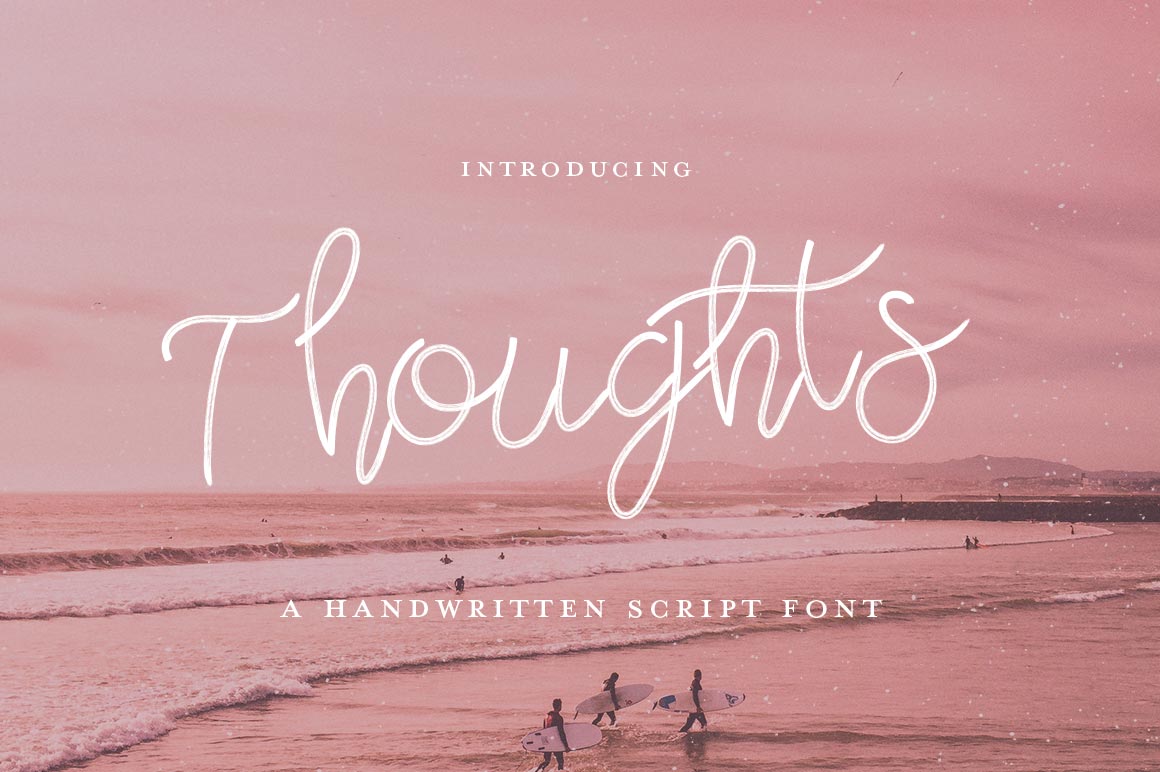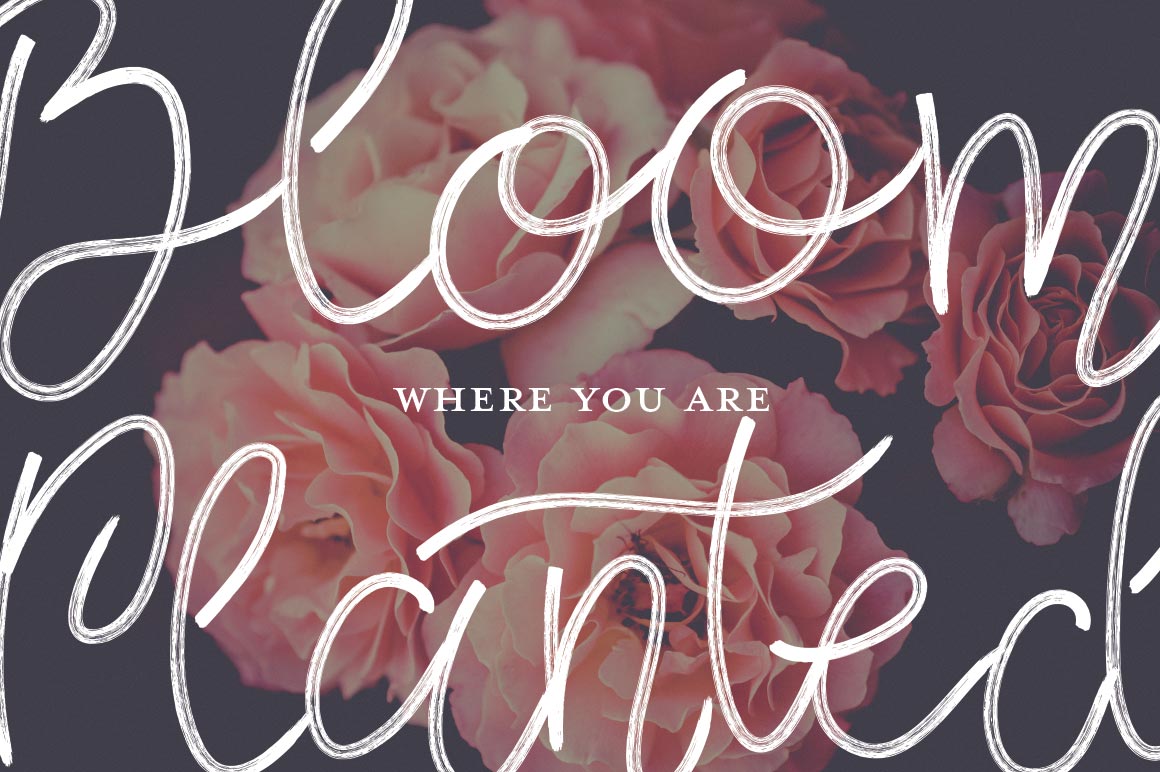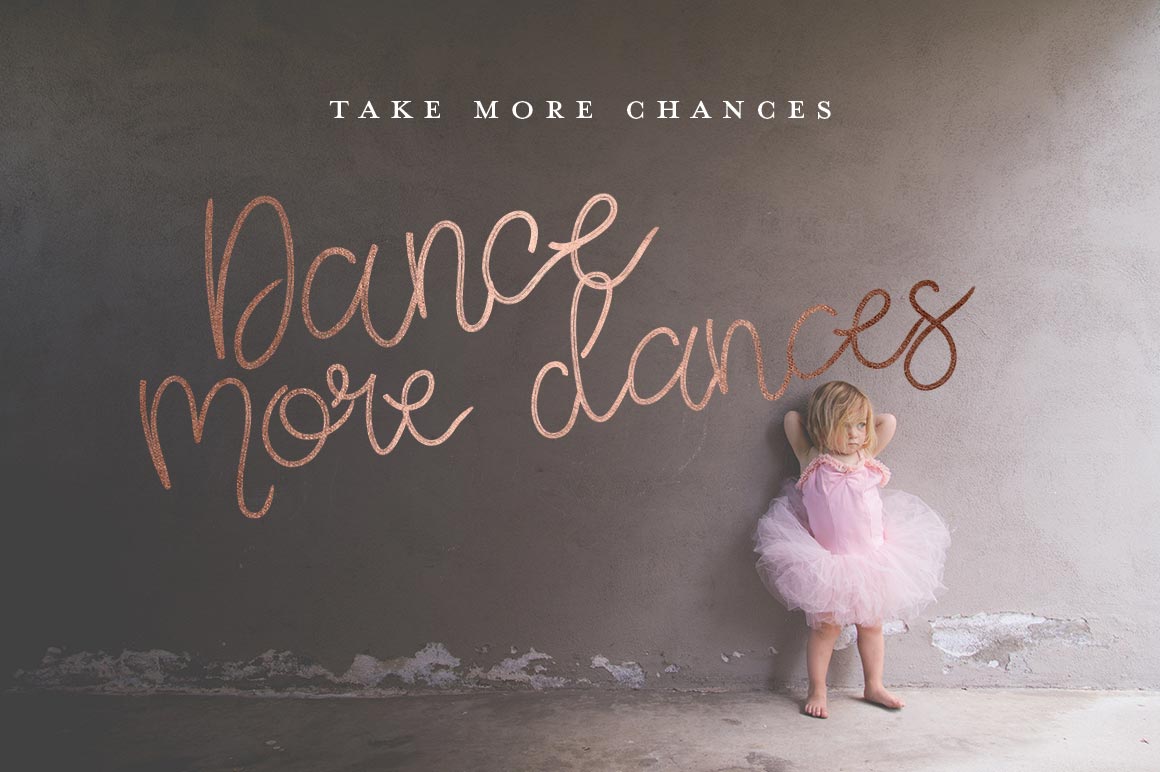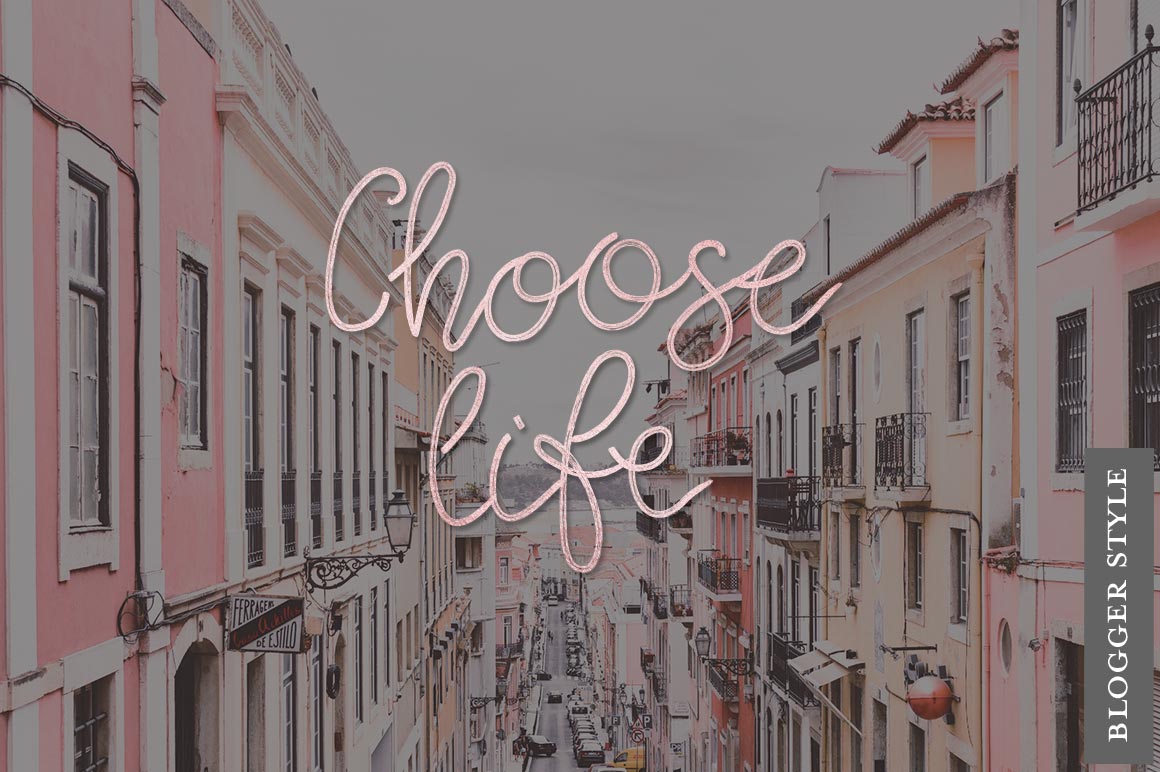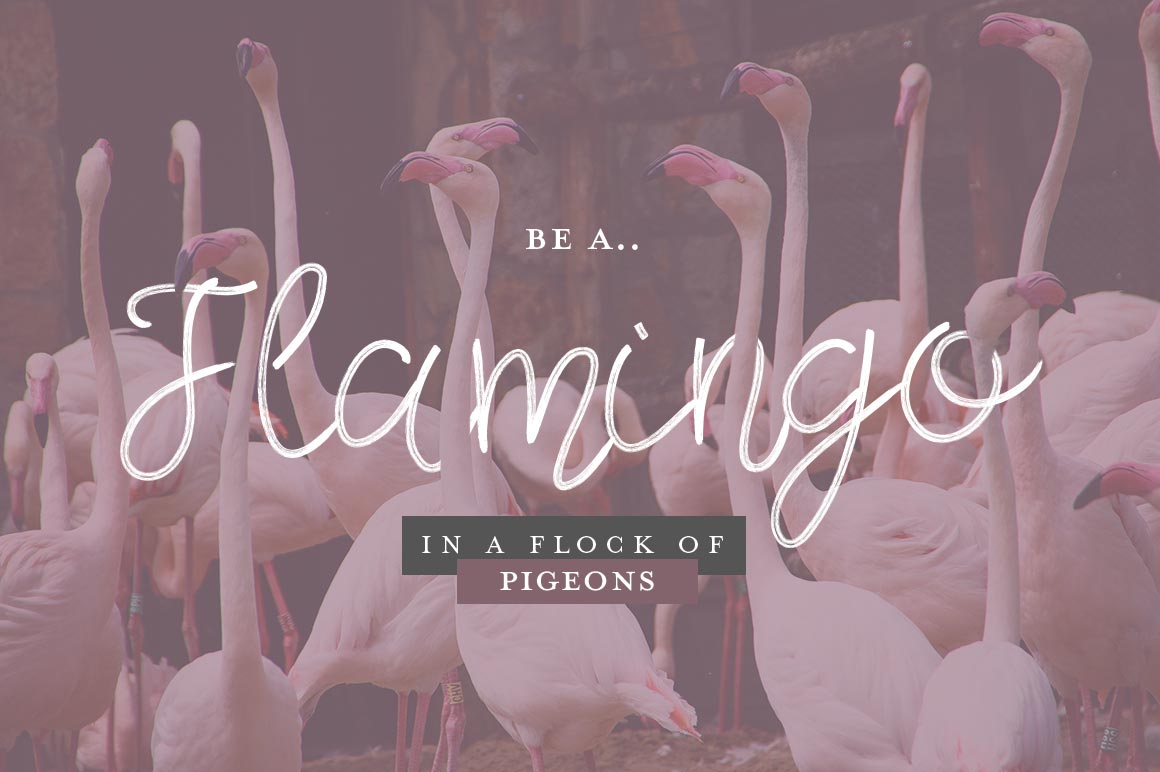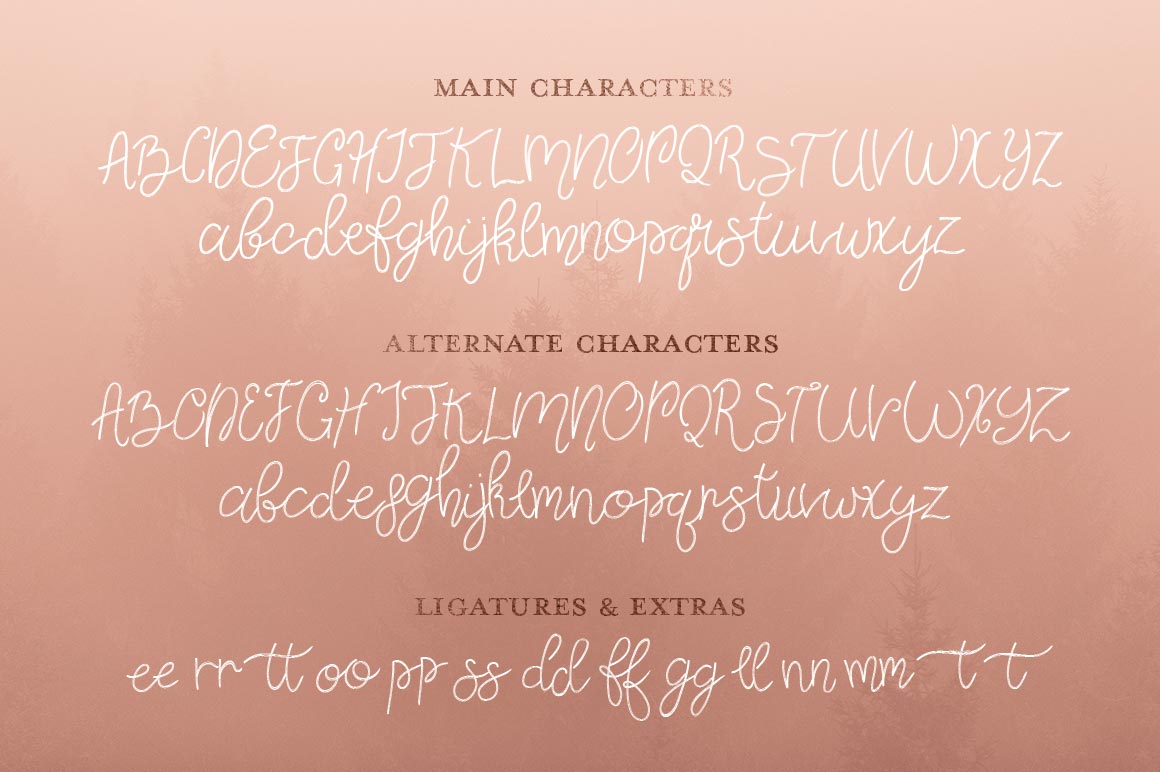
Thoughts Script Font
Introducing ‘Thoughts’ a fabulous, handwritten script font. Created with love and attention to detail, the irregular baseline and fancy letters add a touch of whimsy to your creations.